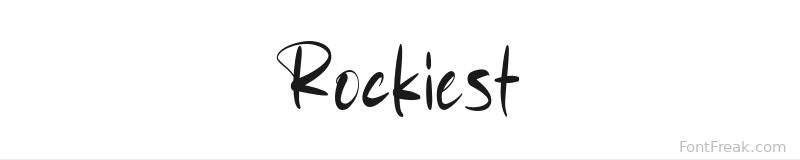
Brushed Traveler
About Brushed Traveler
Brushed Traveler is a striking handwritten font designed by Leonard Posavec, categorized as a script typeface. This font captures the essence of free-spirited creativity, featuring bold, expressive strokes that mimic the look of brush lettering. The letters have a varying stroke weight that adds a sense of dynamism and energy, while the contrast between thick and thin lines enhances its visual appeal. The spacing between characters is generous, allowing each letter to breathe and stand out, making it perfect for both headings and body text.
This font is particularly well-suited for various creative applications. It shines in wedding invitations, where its elegant and personal touch brings warmth and intimacy to the occasion. Additionally, Brushed Traveler can be effectively used in movie posters, where its boldness captures attention and conveys the excitement of cinematic experiences. Restaurant menus will benefit from its stylish flair, inviting diners to indulge in the culinary offerings. Creative content creators will also find it ideal for social media graphics, where the font’s unique character can engage audiences and enhance visual storytelling.
What sets Brushed Traveler apart is its ability to evoke emotion and personality through its artistic lettering style. The combination of its bold strokes and fluid design creates a distinctive look that resonates with anyone seeking to make a statement. For those interested, the Brushed Traveler font free download is readily available, inviting users to explore its creative potential.